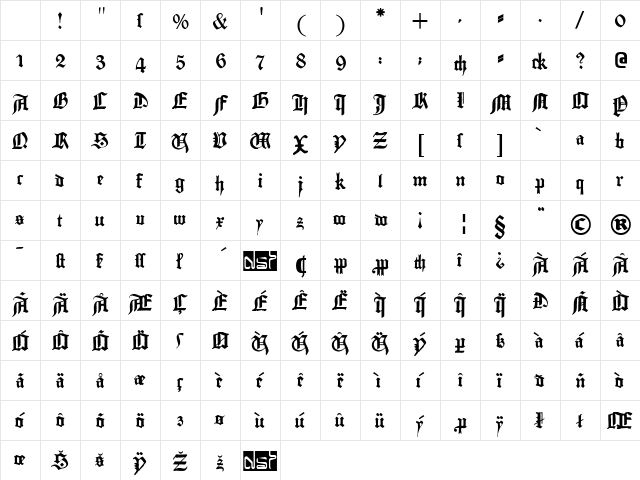
Complete Gutenberg Textura Regular glyph index. Displaying only characters natively supported by Gutenberg Textura Regular font.
Gutenberg Textura draws on the rich tradition of blackletter calligraphy, with dense, angular strokes that evoke medieval manuscripts and old-world craftsmanship.
Font Pairing: Pair with a clean neutral sans-serif for body copy to let Gutenberg Textura's character lead without overwhelming the composition.
Pro Tip: Reserve Gutenberg Textura for display and logo use - pair it with a clean sans-serif for body copy to prevent the composition from feeling oppressive.